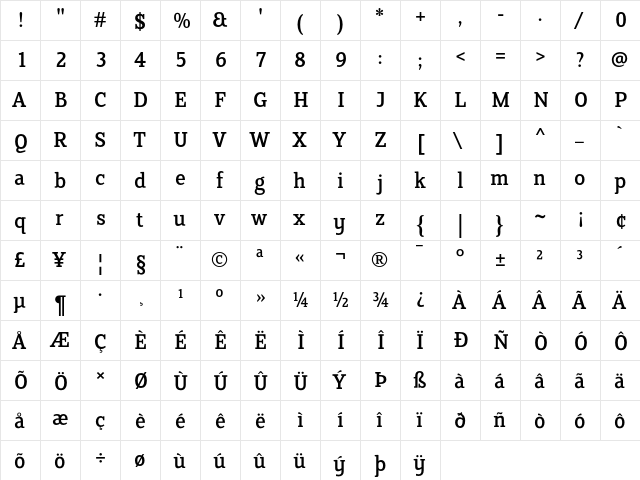
FS Clerkenwell Regular
Regular · Fontsmith Ltd Phil Garnham and Jason Smith ·
Design Context for FS Clerkenwell Typeface
FS Clerkenwell offers clean, dependable letterforms without strong stylistic allegiance, making it a practical choice for designers who need flexibility.